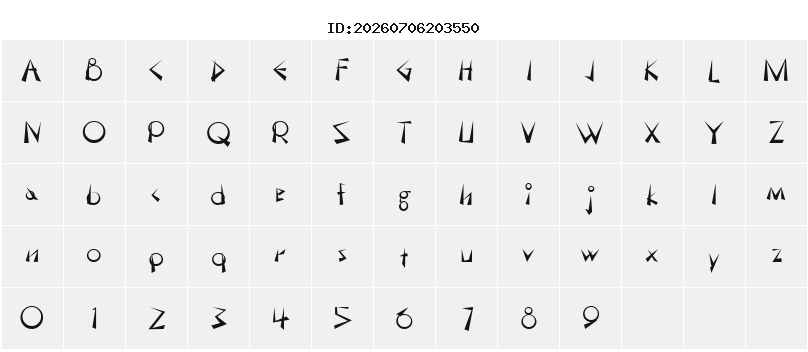
• Full Font Name: Demotte Bold
About Demotte.ttf
Demotte.ttf is a modern, elegant sans-serif font designed for ultimate readability and visual harmony. Perfect for branding, headlines, web design, and print materials.